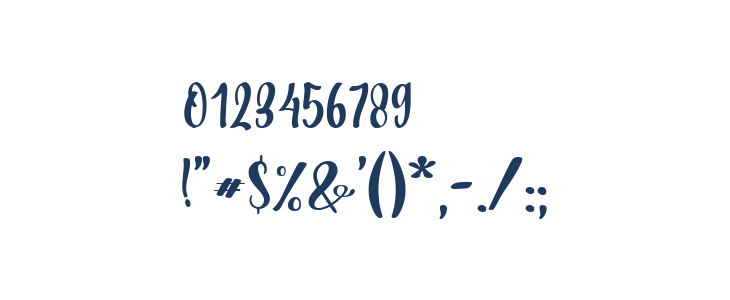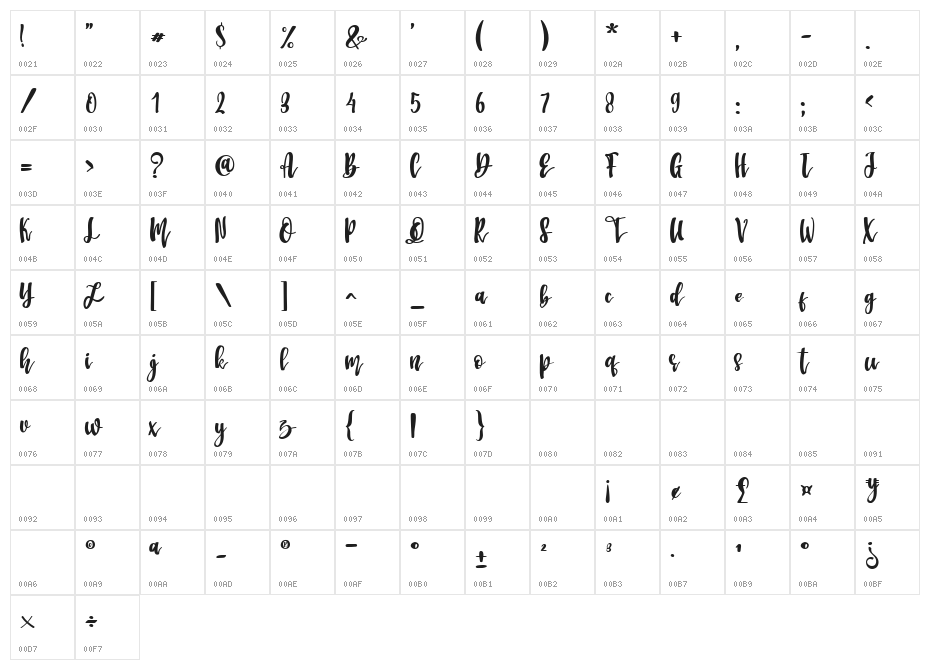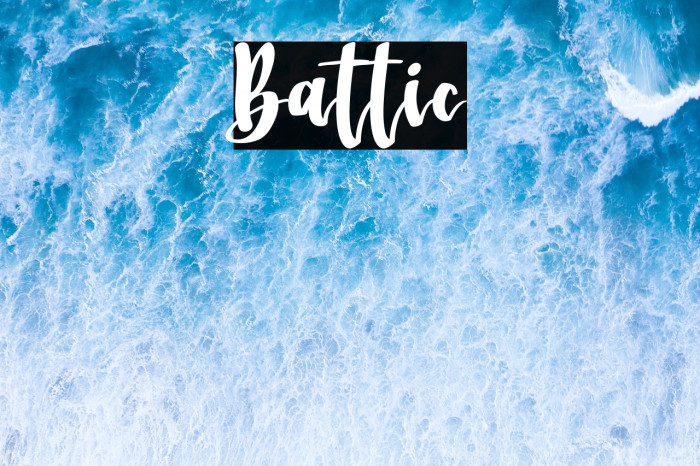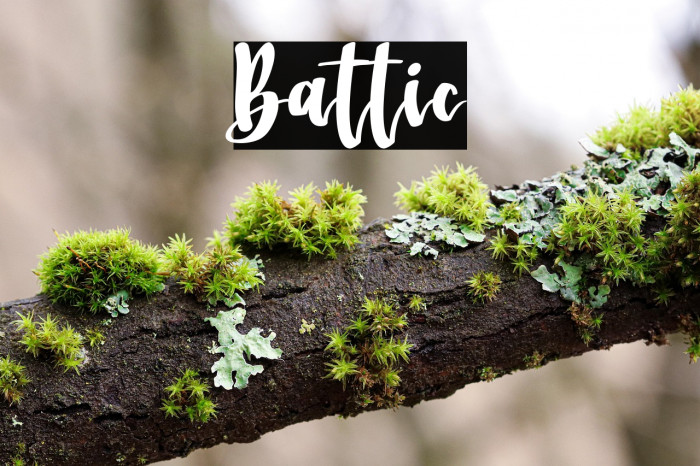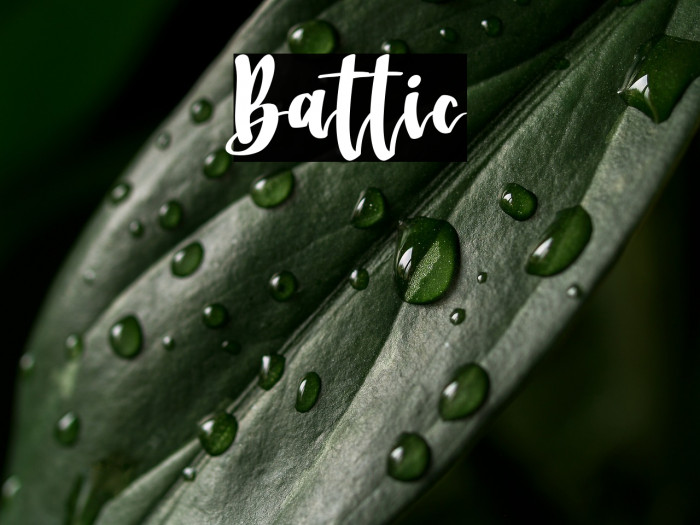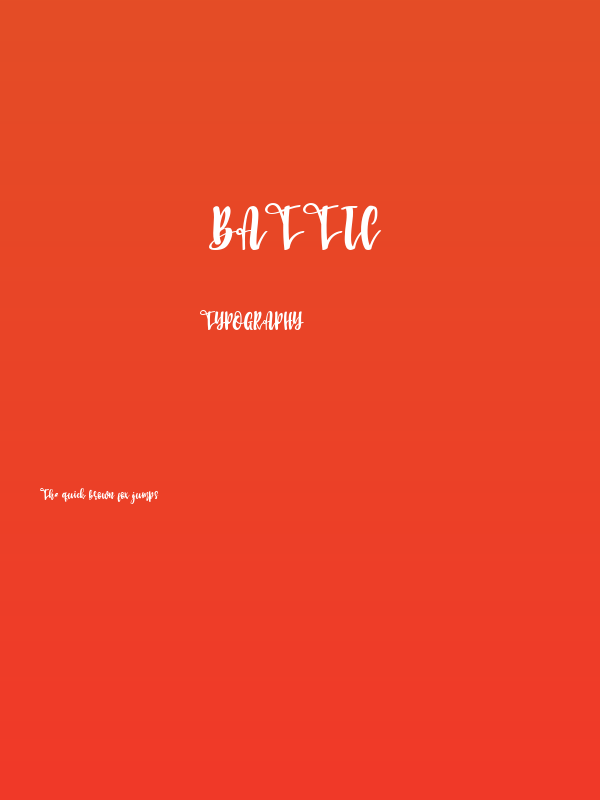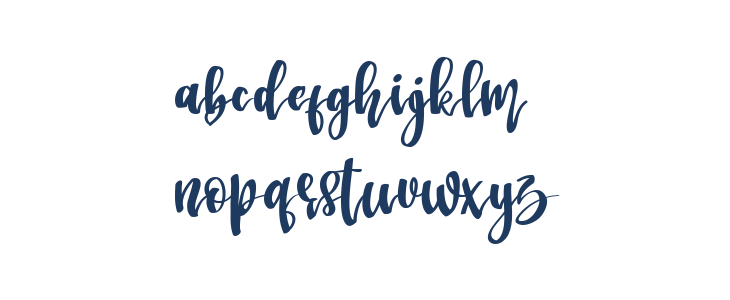
Battic Font
Battic Description
This font features a bold, flowing script style with a hand-drawn appearance. The uppercase letters are ornate, with exaggerated loops and flourishes that give a sense of movement and elegance. The lowercase letters maintain a consistent style, with smooth curves and a slightly condensed form. Numbers are bold and maintain the same fluidity, while special characters are creatively integrated, matching the overall aesthetic. The font's playful yet sophisticated design makes it suitable for a variety of creative projects.
| Proposed Projects | Ideal for wedding invitations, branding, greeting cards, and artistic posters. |